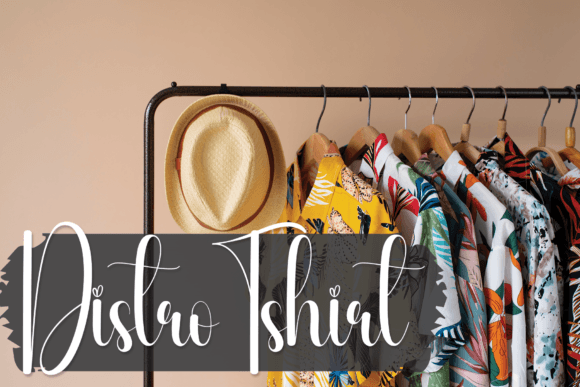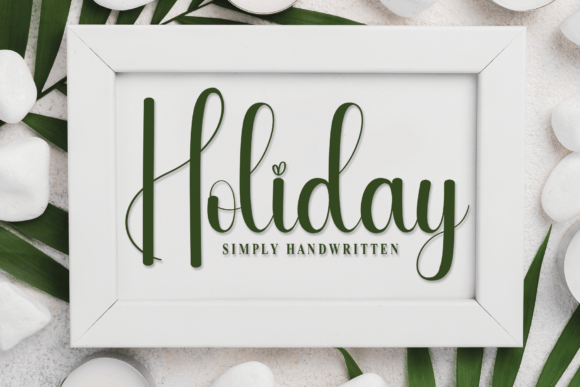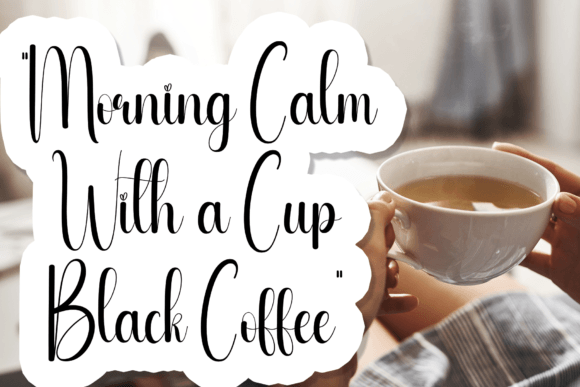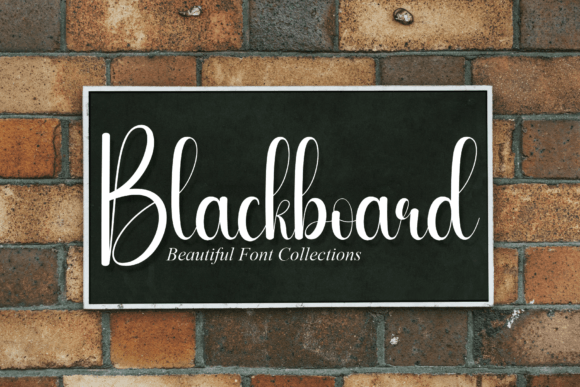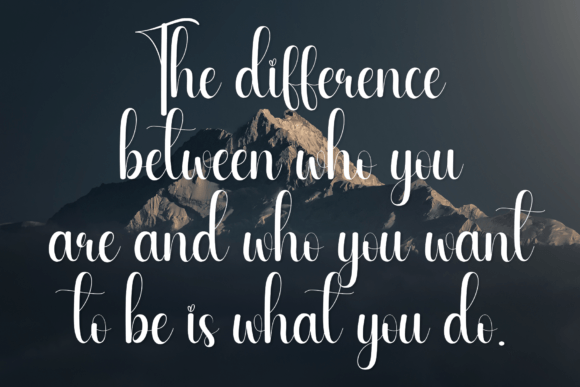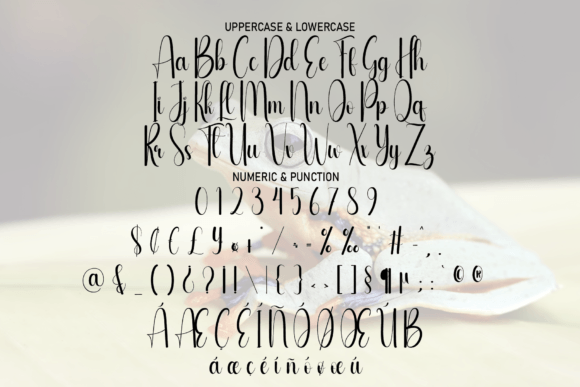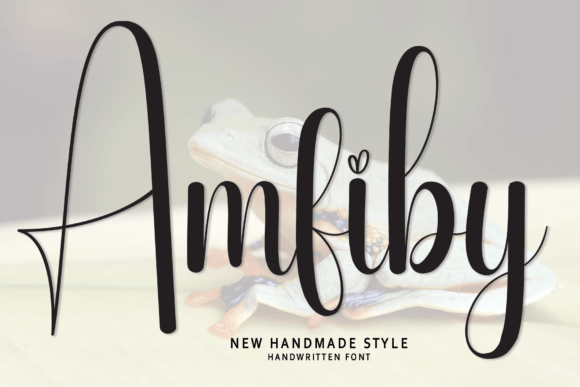
Introducing Amfiby Font: The Sweet and Delicate Handwritten Font for Romantic Designs
In the world of typography, fonts play a crucial role in conveying emotions and setting the tone for a design. If you’re a designer or crafter looking for a font that exudes sweetness, delicacy, and romance, look no further than Amfiby Font. This beautiful handwritten font is perfect for creating wedding invitations, cards, and other designs that require a personal touch.
What Makes Amfiby Font Special?
Amfiby Font is a unique and charming typeface that is sure to capture the hearts of designers and crafters alike. Its dainty and joyful nature makes it an ideal choice for a variety of design projects, including:
- Personalized gifts and crafts
With Amfiby Font, you can add a touch of elegance and sophistication to your designs, making them truly special and memorable.
Key Features of Amfiby Font
So, what makes Amfiby Font so special? Here are some of its key features:
- Handwritten with love: Amfiby Font is a carefully crafted handwritten font that exudes a sense of warmth and personality.
- Sweet and delicate: The font’s dainty nature makes it perfect for creating romantic and feminine designs.
- Easy to read: Despite its delicate nature, Amfiby Font is surprisingly easy to read, making it perfect for body text and captions.
- Versatile: Amfiby Font can be used for a wide range of design projects, from digital designs to print materials.
Tips for Using Amfiby Font in Your Designs
Now that you know how special Amfiby Font is, here are some tips for using it in your designs:
- Pair it with other fonts: Amfiby Font pairs beautifully with other fonts, especially sans-serif fonts like Arial or Helvetica.
- Experiment with colors: Amfiby Font looks stunning in pastel colors, but feel free to experiment with other colors to match your brand or design style.
- Use it for headlines and titles: Amfiby Font is perfect for headlines and titles, but you can also use it for body text and captions.
- Add some flair: Amfiby Font has a playful nature, so don’t be afraid to add some flair to your designs with swashes, flourishes, or other decorative elements.
Where to Use Amfiby Font
Amfiby Font is a versatile font that can be used in a variety of design projects, including:
- Wedding and event planning: Use Amfiby Font to create beautiful wedding invitations, save-the-date cards, and other event materials.
- Stationery and paper crafts: Amfiby Font is perfect for creating personalized stationery, gift tags, and other paper crafts.
- Digital designs: Use Amfiby Font to create stunning digital designs, including social media graphics, blog headers, and website titles.
- Greeting cards and gift wrap: Amfiby Font is a great choice for creating beautiful greeting cards and gift wrap.
In conclusion, Amfiby Font is a sweet and delicate handwritten font that is perfect for designers and crafters looking to add a romantic and personalized touch to their designs. With its dainty and joyful nature, Amfiby Font is ideal for a variety of design projects, from wedding invitations to digital designs. So why not give Amfiby Font a try and see how it can elevate your designs?